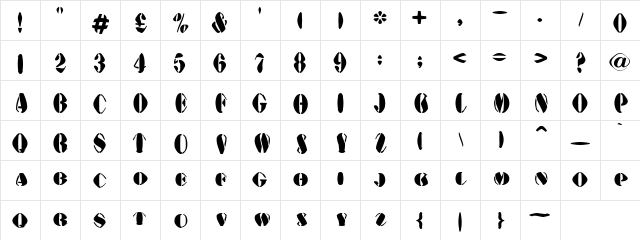
AustralianFlyingCorpsStencilA Regular
Design Context for AustralianFlyingCorpsStencilA Typeface
AustralianFlyingCorpsStencilA has the rough pragmatism of spray-painted stencil signage, adding a raw, street-level authenticity to designs.
Ideal for industrial branding, streetwear, military-adjacent aesthetics, and urban signage projects.